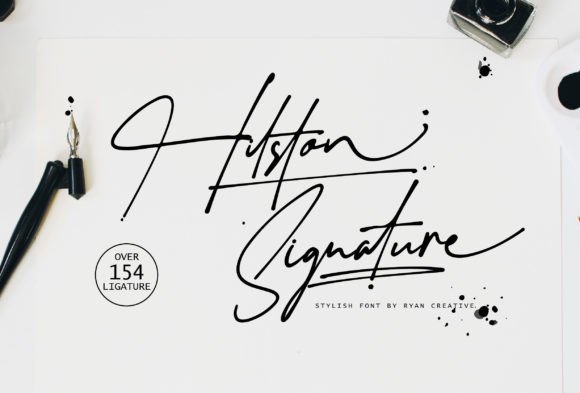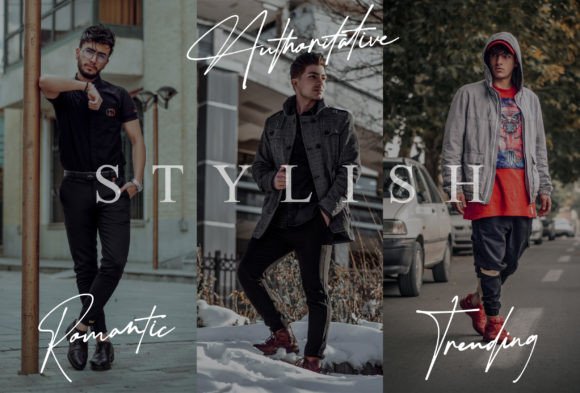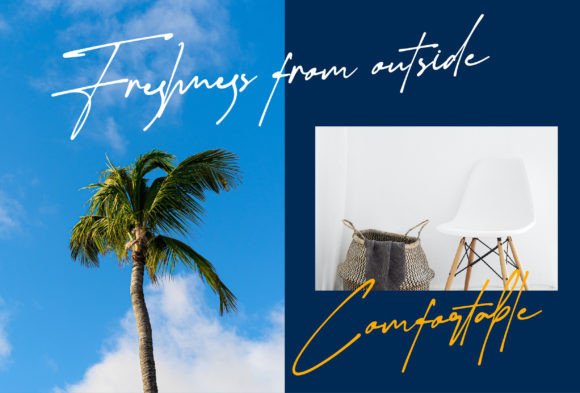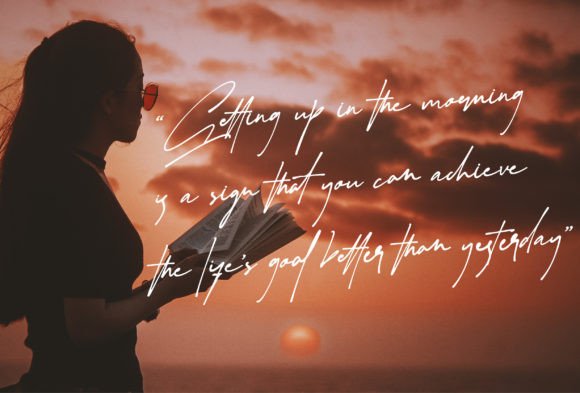
Hilston Signature Font
About the Hilston Signature Font
Meet Hilston Signature Font, a stunning font that brings a touch of elegance and professionalism to any design. Hilston signature is a type of font that resembles elegant and beautiful handwriting, often used to give a personal and luxurious impression to graphic designs or documents. These fonts typically have smooth, squiggly accents, with rounded, curved edges, much like handwriting written with a pen or brush.
Hilston Signature’s elegant, flowing forms are ideal for headlines, logos, short quotes, and invitations where a touch of luxury and personality is desired. It excels in branding applications for high-end products, boutique businesses, or special events. However, its ornate style is unsuitable for body text or UI elements; the intricate details would hinder readability in longer passages.
Consider pairing Hilston with a clean sans-serif like Montserrat for a contemporary contrast, or a classic serif such as Garamond for a more traditional feel. A geometric sans-serif would offer a striking juxtaposition, while a simple script font could reinforce the handwritten aesthetic.
Hilston projects a sophisticated and slightly playful personality, balancing elegance with a friendly approachability. This makes it particularly well-suited for brands aiming for a premium yet personable image.